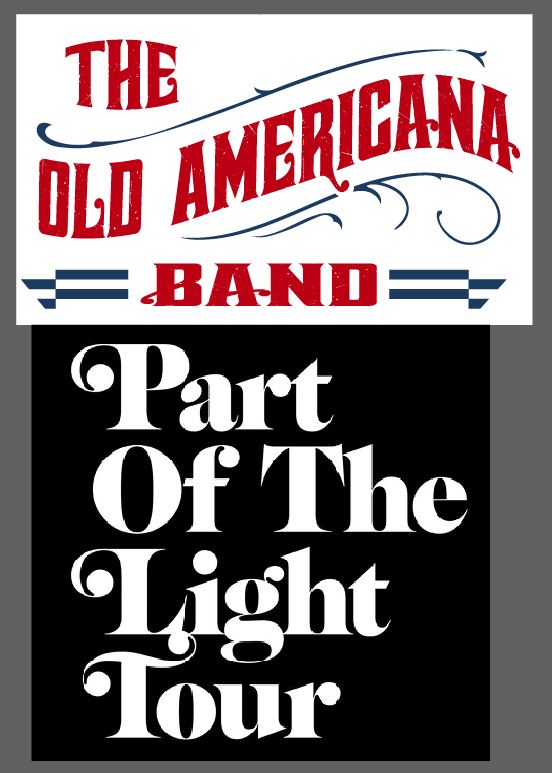
Band needs more shirts made and is looking to use similar fonts to either of these for new merch. Doesn’t have font name from original logo. Top image is theirs, bottom is another font they want from a Ray Lamontagne tour poster. Any ideas?
The bottom one is Benguiat Caslon with swash characters